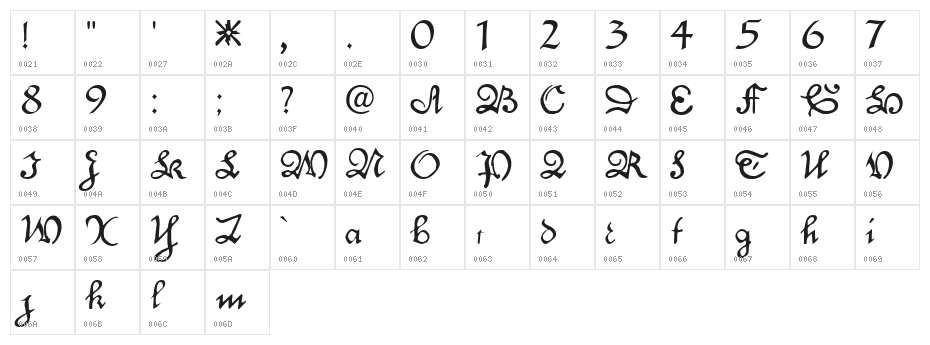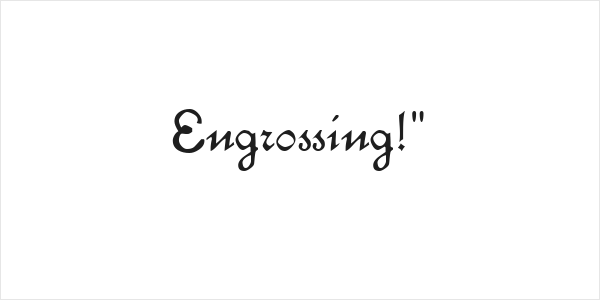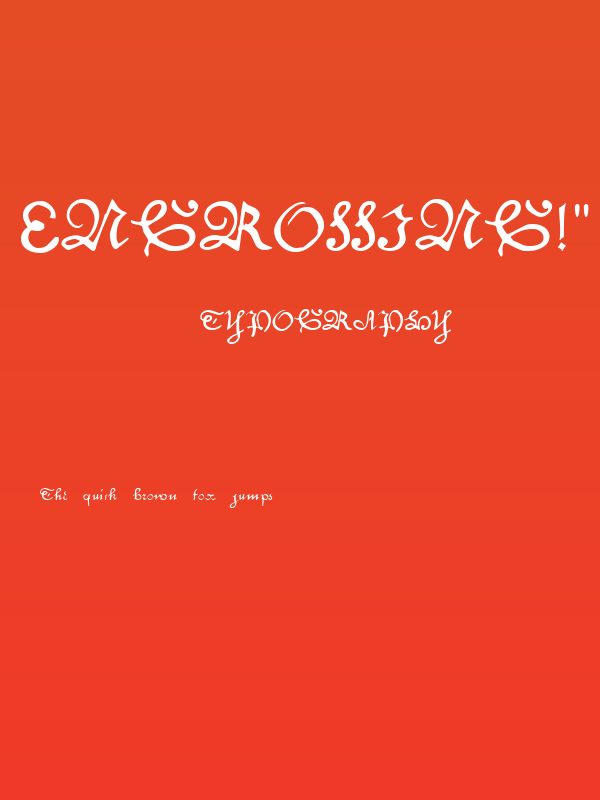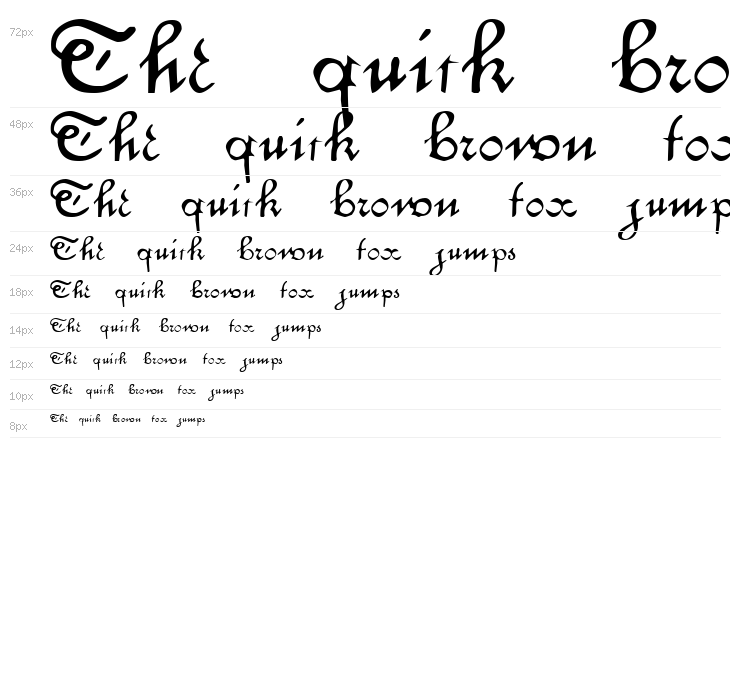
Engrossing!" Font
Engrossing!" Description
This font features a highly decorative and intricate design, reminiscent of traditional calligraphy with a modern twist. The uppercase letters are ornate, with flourishes and loops that give them a sense of elegance and sophistication. The lowercase letters maintain a similar style, with smooth curves and a flowing appearance that enhances readability while maintaining the decorative nature. The numerals are consistent with the overall style, featuring unique shapes that add to the font's distinctiveness. Special characters are equally stylized, fitting seamlessly into the font's aesthetic. This font is ideal for projects that require a touch of elegance and artistic flair.
| Categories | Decorative |
| Use Case | Headlines, Logos, Invitations |
| Proposed Projects | Ideal for wedding invitations, luxury branding, artistic posters, and decorative headings. |